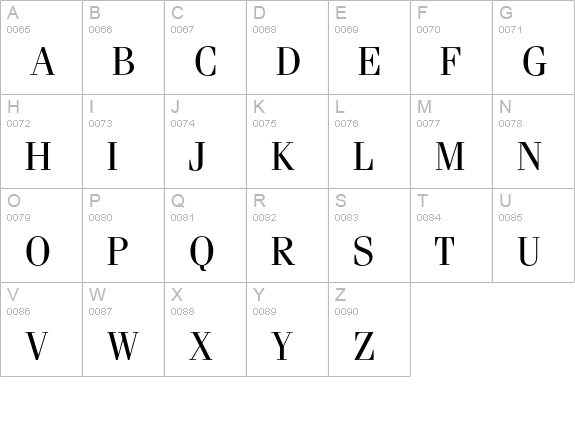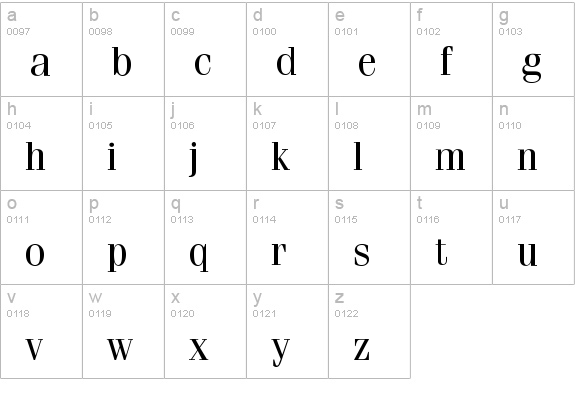
Fenice* Regular Font Details
Fenice* Regular is the standard, neutral variant in the Fenice* typeface family \xE2\x80\x94 well suited to general body text, paragraphs, and standard typographic work.
Fenice Regular font is a versatile and elegant typeface that exudes a sense of sophistication and modernity. Its clean lines and balanced proportions make it perfect for a wide range of design projects, from branding to editorial layouts. The classic yet contemporary look of Fenice Regular font ensures that it can be used in both traditional and modern settings with ease. What makes Fenice Regular font even more appealing is that it is available for free download at FontsMarket.com. This means that you can easily access this high-quality font without any cost, making it a valuable addition to your font library. Whether you are a designer looking for a reliable typeface or a business owner in need of a professional font for your marketing materials, Fenice Regular font is sure to meet your needs and exceed your expectations. Download it today and elevate your design projects with this exceptional typeface.